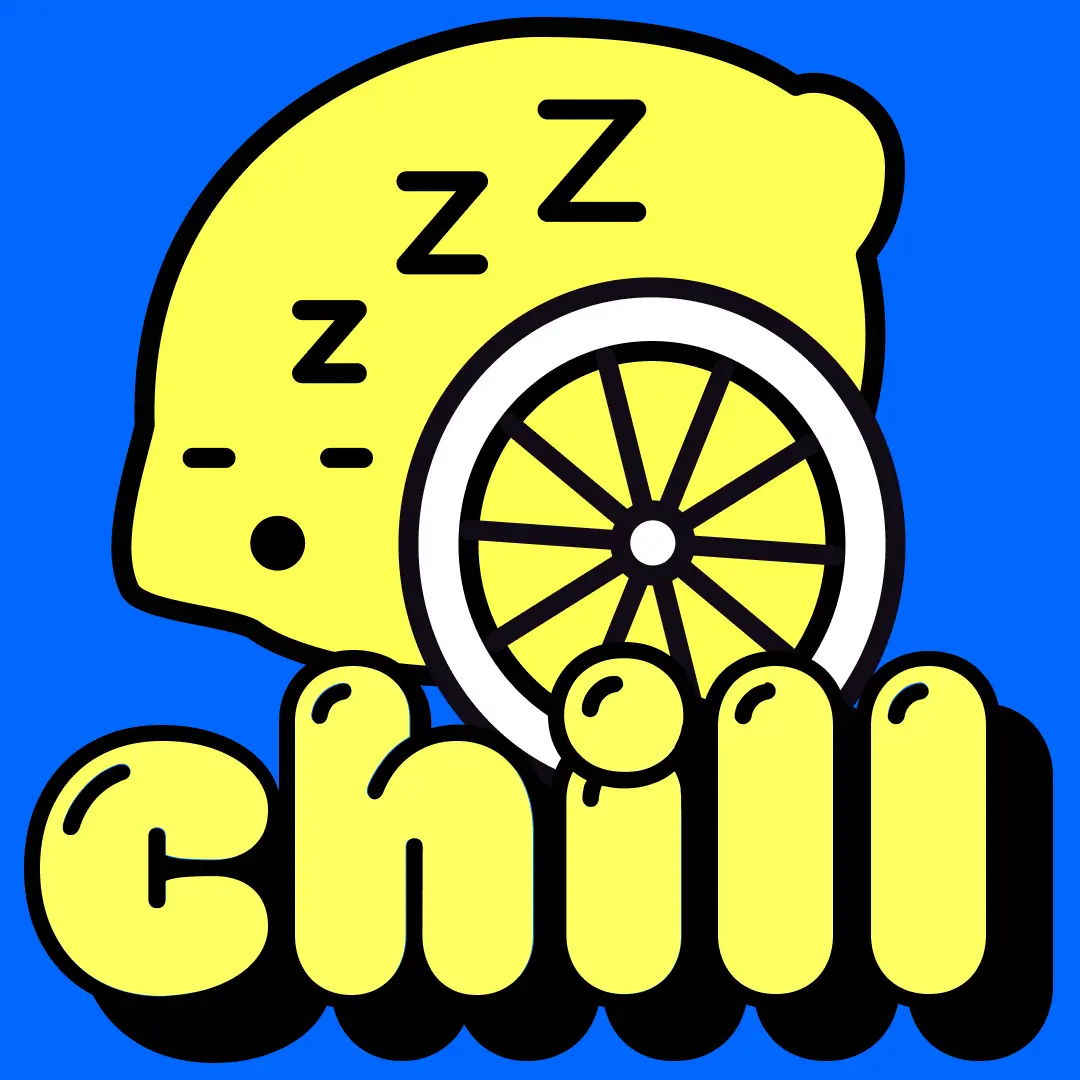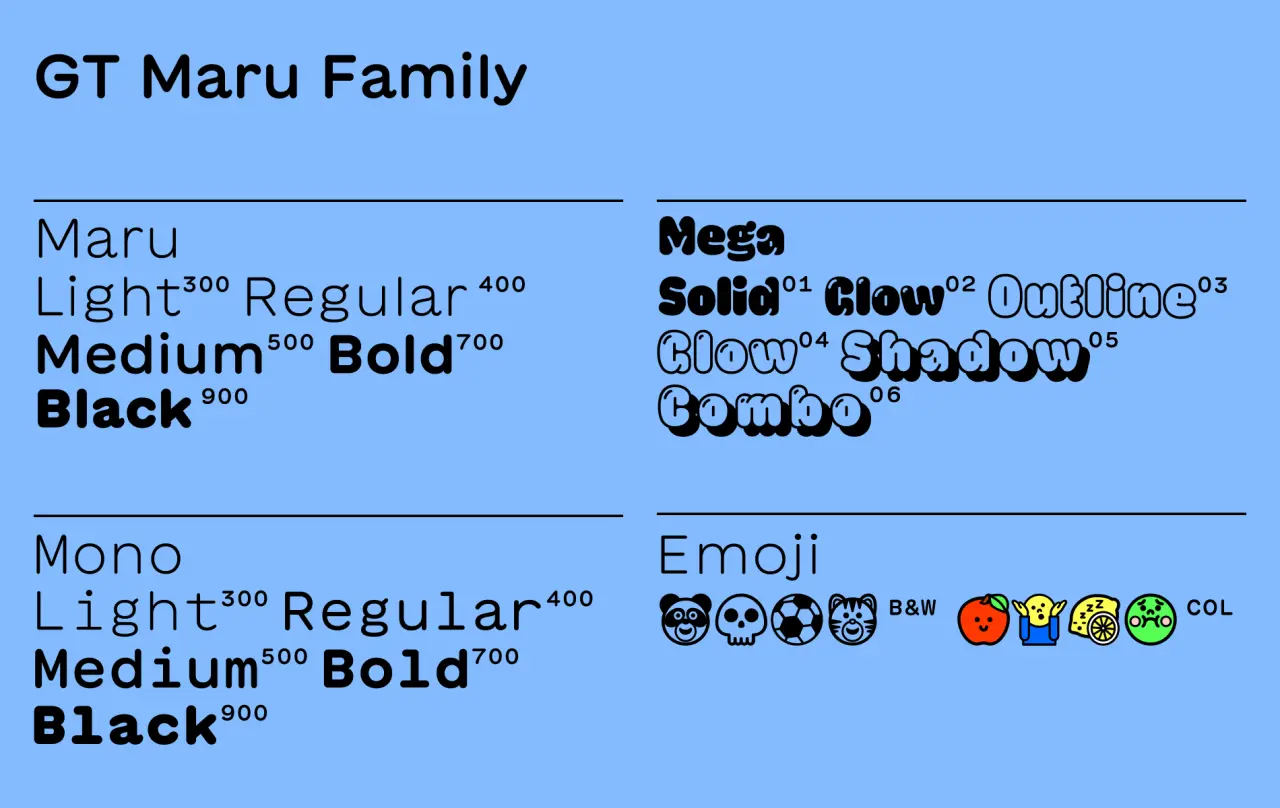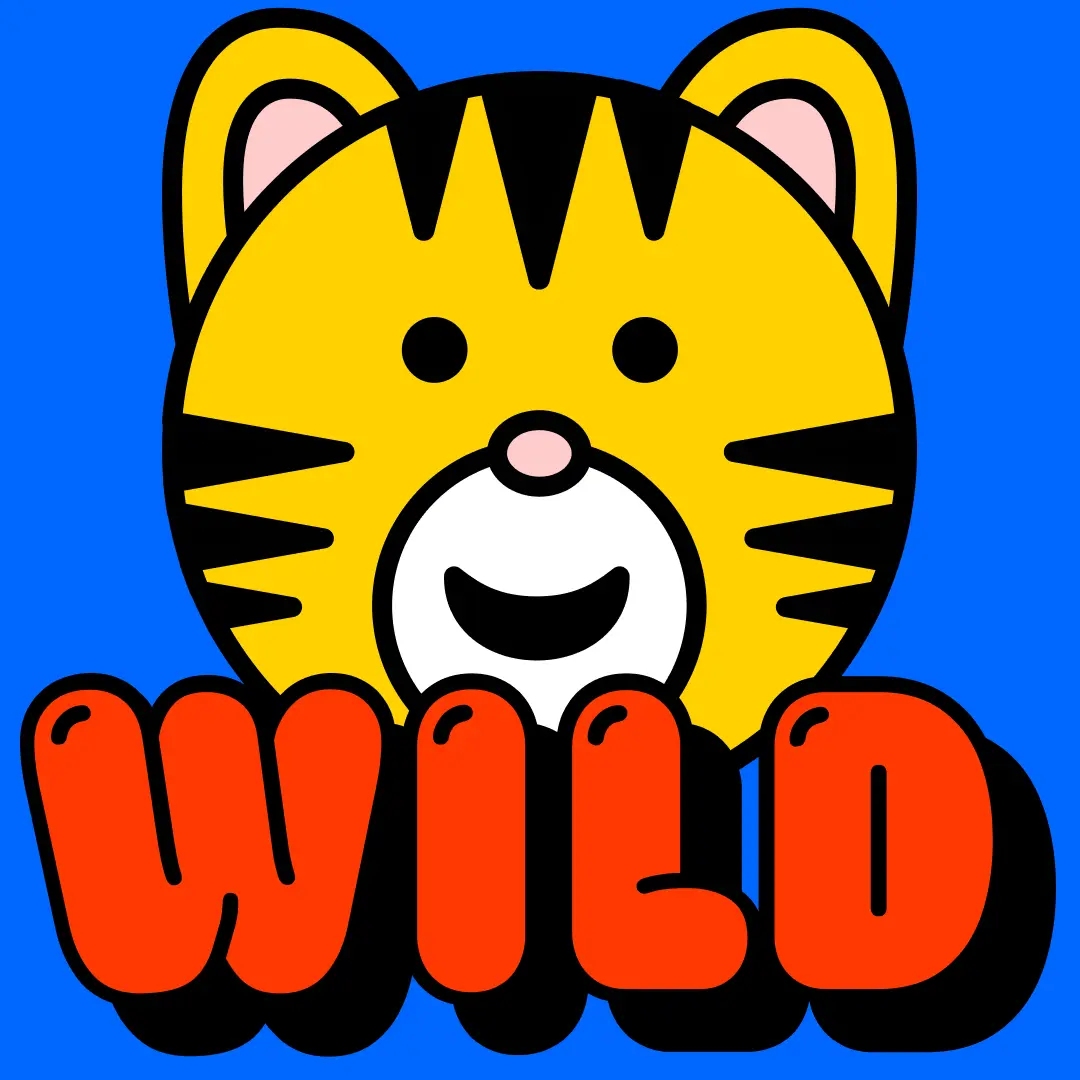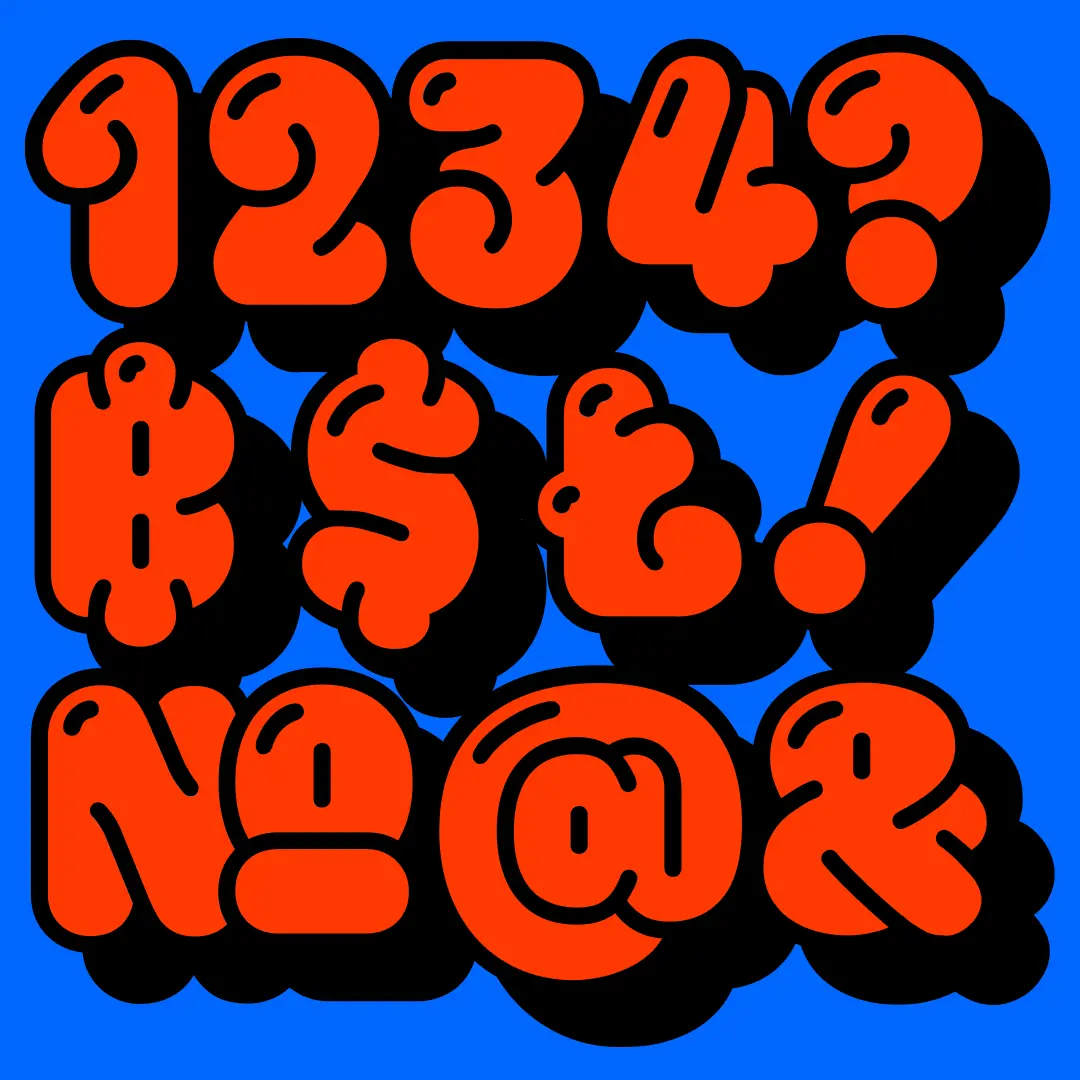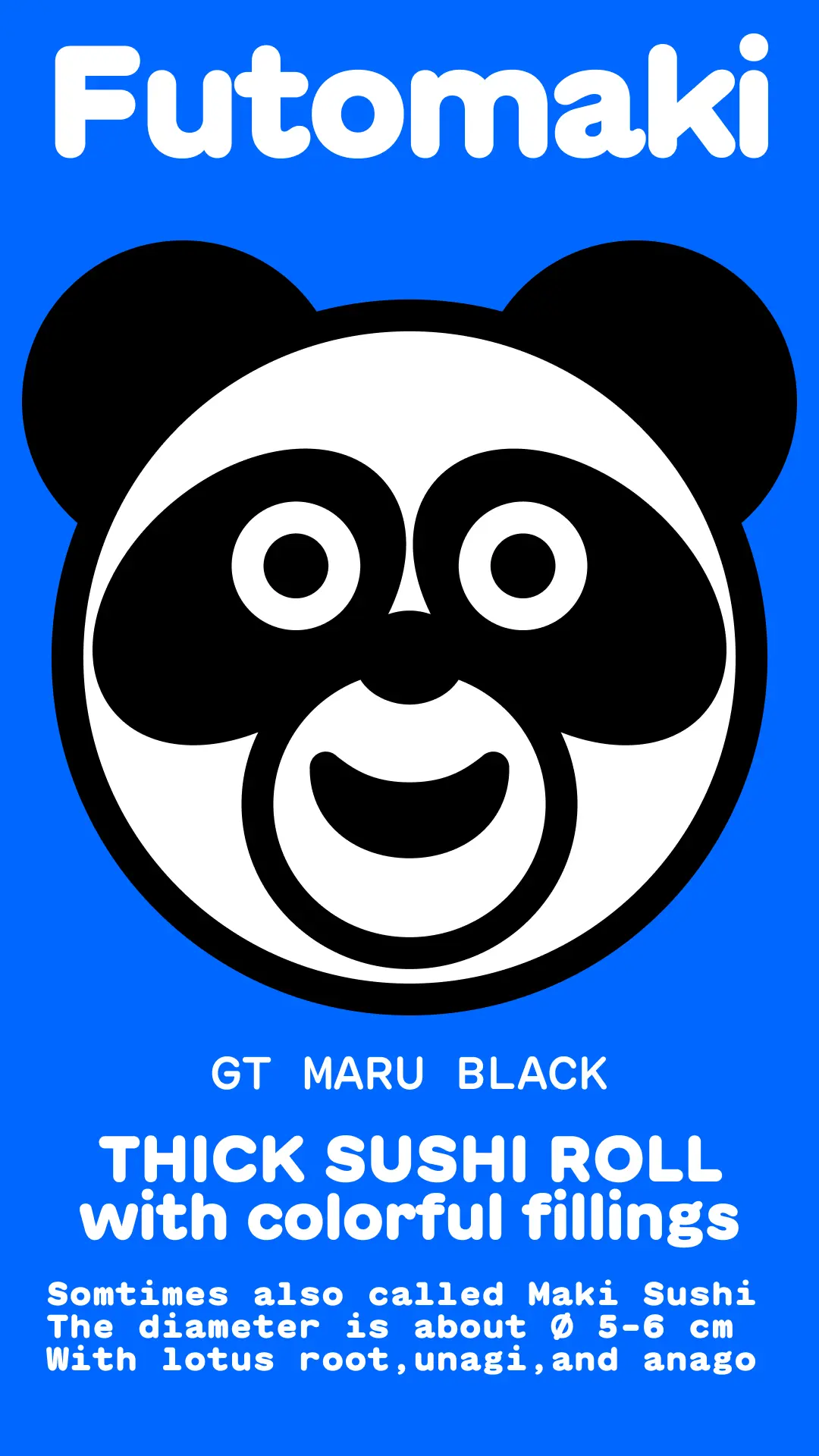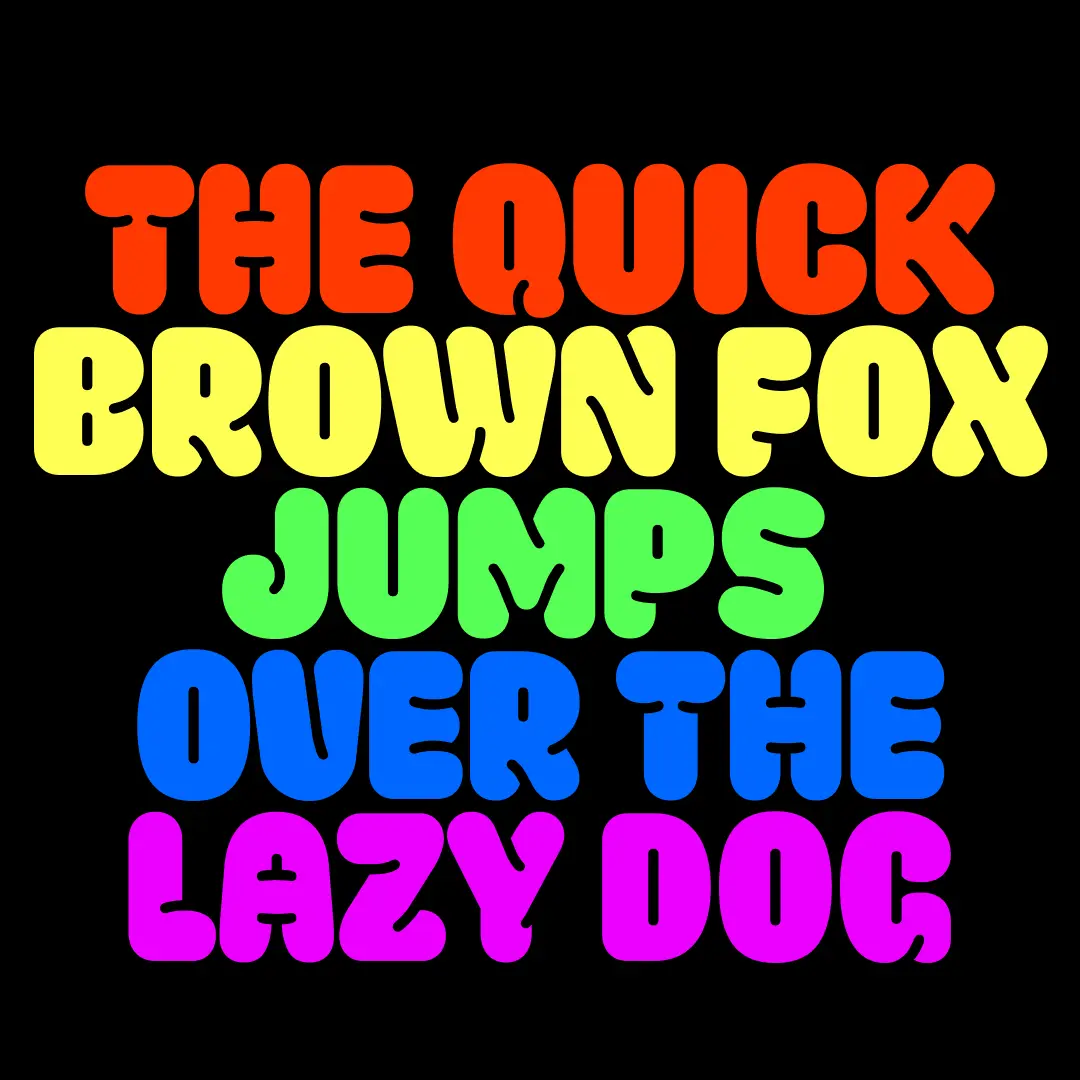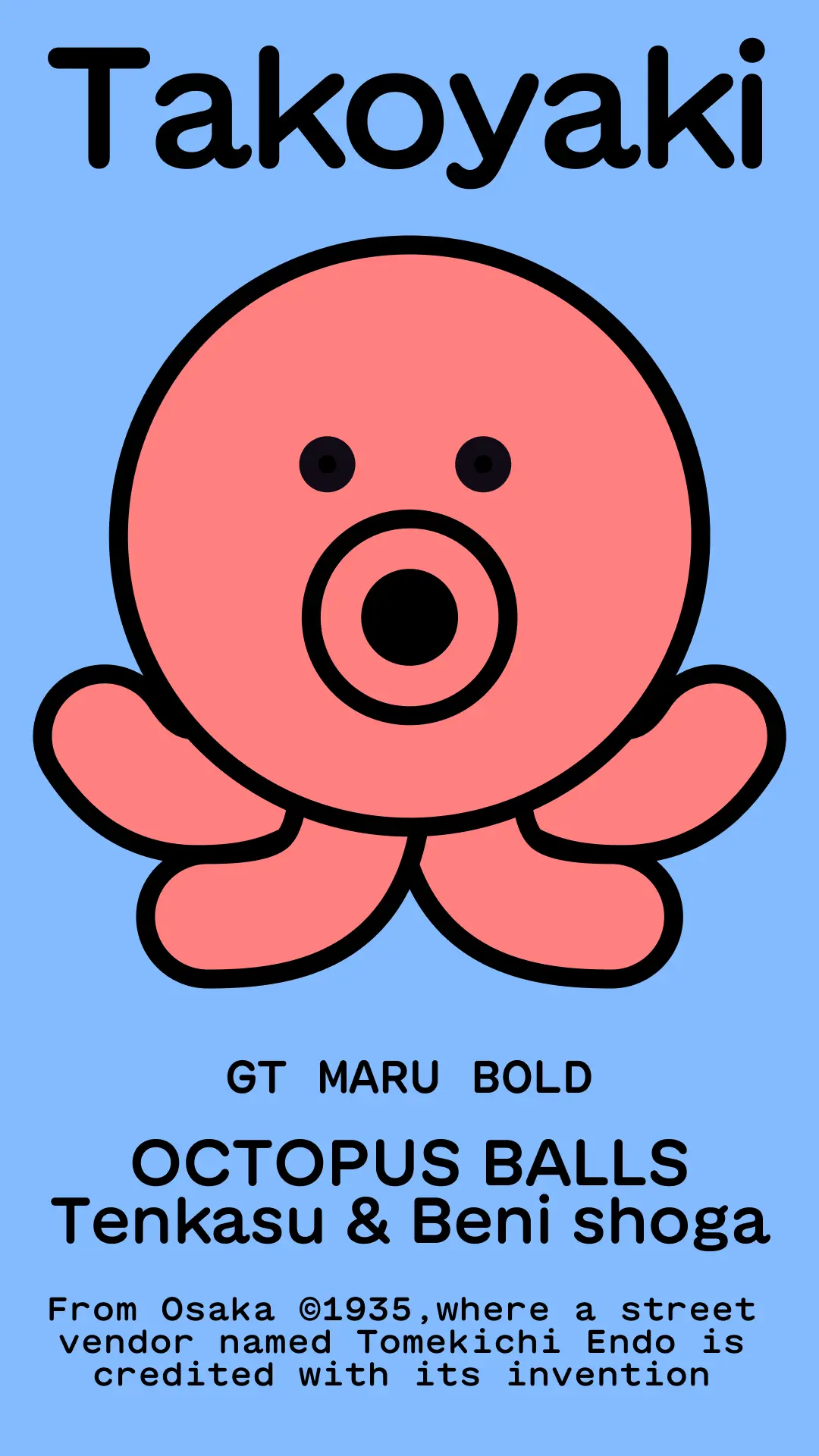
Grilli Type new typeface GT Maru is a wild and wonderful collision of cultures
In a vibrant, joyful collision of visual and verbal communication, Swiss Type Foundry Grilli Type has unveiled its new typefaces GT Maru; a harmonious expression combining Japanese and Latin writing systems into a single wonderful and wild typeface.
Coming from the mind of Grilli Type co-founder Thierry Blancpain, GT Maru was an exercise in finding the balance between form and function; a difficult task due to the vibrancy seemingly bursting from the letterforms, but a task successfully achieved nonetheless – resulting in a totally charming and excitable typeface that is an illuminating departure from the brutal and stark typefaces we see in the contemporary typographic scene.
Following four years of traveling to and from Japan, alongside a perpetual pondering of the joyful tone of visual communication in the country, Thierry began exploring the 'maru' ('roundness') of Latin script, experimenting on how the two worlds could cohesively combine.
Subsequently the outcome is pretty prolific, with five weights, including proportional and monospace subfamilies, and an enormous dual emoji set to accompany it. With the emojis coming in monochrome and colour, there will certainly be an icon to help you out when words just fail to express your thoughts – such as an emoji of Thierry's own dog Barley!